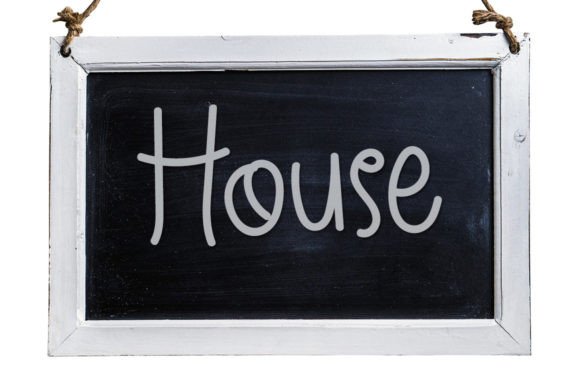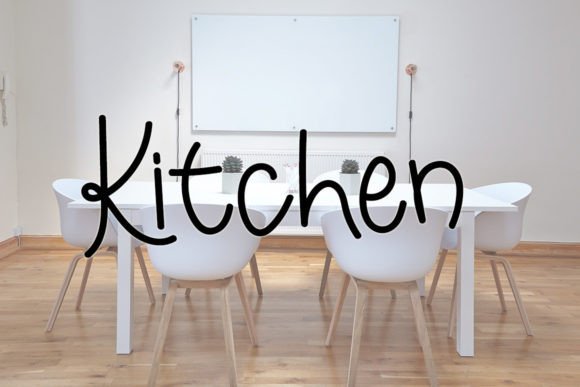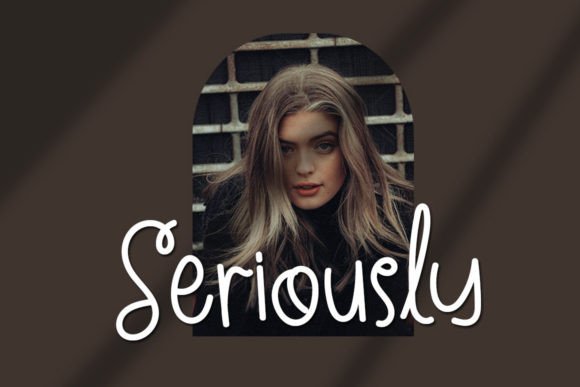
Introduction to School Boyfriend Font
School Boyfriend is a beautiful and sweet handwritten font.
Fresh, clean, and elegant, it will look amazing on a great number of projects, both formal and informal It will add an incredibly joyful touch to your designs.